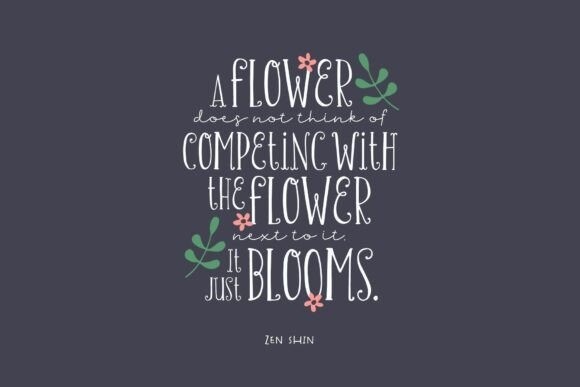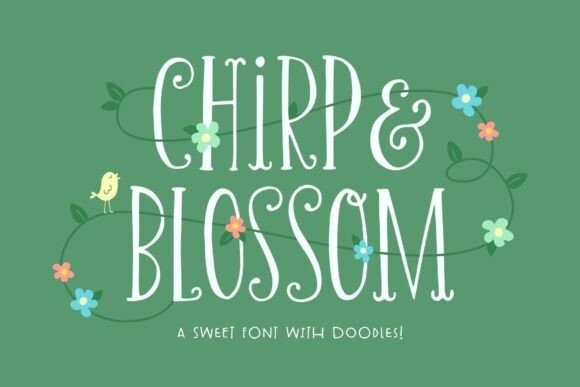
Chirp & Blossom Font
Designer: Denise Chandler
Chirp & Blossom Font is an adorable all-caps hand-drawn serif font that evokes feelings of springtime, sunshine, and happiness! The cute, curly serifs will put a smile on anyone’s face. It comes with a bonus set of nature-inspired doodles to bring your designs to life!